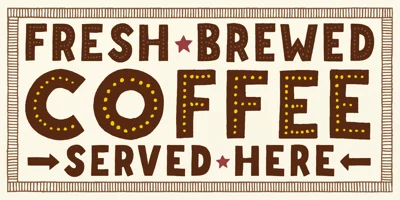
Mrs Lollipop Font
Mrs Lollipop Font is perfect for children's book covers, candy store branding, birthday party invitations, toy packaging designs, ice cream parlor signage, playful greeting cards, kids' app interfaces, and whimsical marketing materials that need to capture youthful joy and sweetness.
Mrs Lollipop Font is exciting because it perfectly captures the innocent joy and playful spirit of childhood with its bouncy, rounded letterforms that seem to dance with happiness. The font's sweet character variations and cheerful personality instantly evoke feelings of fun, celebration, and carefree moments, making it irresistible for projects targeting families and children.
The Mrs Lollipop Font family includes delightful variations: Regular, Bold, Outline, Shadow, and Decorative versions. Each style maintains the font's signature playful charm while offering different levels of visual impact, allowing designers to create layered effects and dynamic compositions that enhance the whimsical appeal of any project.
This delightful typeface brings pure joy and sweetness to every design application. Whether you're creating children's products, party materials, or family-friendly branding, Mrs Lollipop Font delivers unmatched charm and playful energy that captivates young audiences and parents alike. The font's carefully crafted letterforms feature rounded edges and bouncy proportions that create an instantly recognizable fun factor. Designers love its ability to convey happiness, innocence, and celebration across various media from digital to print. The complete character set includes playful punctuation and special characters that maintain the font's joyful aesthetic. With its irresistible sweetness and child-friendly appeal, Mrs Lollipop Font transforms any project into a celebration of childhood wonder, making it the perfect choice for brands and designs that want to spread happiness and create lasting positive memories.